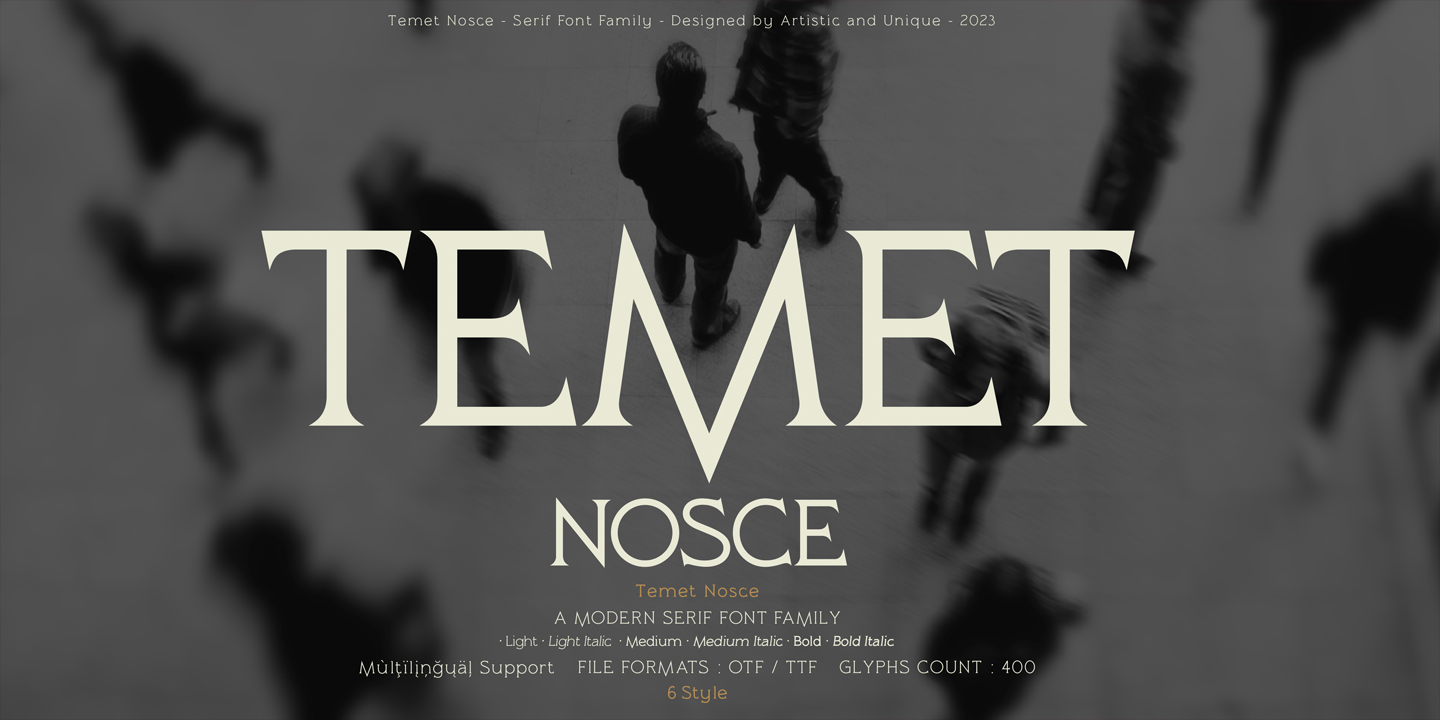
Temet Nosce Font is ideal for philosophical publication covers, meditation center branding, wisdom-focused book designs, spiritual retreat materials, psychology practice logos, ancient temple inscriptions, mindfulness app interfaces, and contemplative journal layouts. Its profound character makes it perfect for projects celebrating self-knowledge and philosophical wisdom.
What makes Temet Nosce Font exciting is its extraordinary ability to embody the ancient Greek maxim "know thyself" through thoughtfully crafted letterforms that inspire introspection and spiritual awakening. The contemplative construction features balanced proportions with mystical elements that encourage deeper reflection and self-discovery. This typeface embodies ancient wisdom and philosophical depth, making every design feel spiritually significant and intellectually profound.
Temet Nosce Font family includes Regular, Bold, Light, Italic, Ancient, and Mystic variations, providing designers with comprehensive tools for creating meaningful philosophical typographic compositions that honor wisdom traditions.
Discover profound design wisdom with the enlightening power of Temet Nosce Font Free Download. This contemplative typeface brings ancient philosophical depth to any creative project, whether you're developing brand identities for wellness organizations, crafting promotional materials for spiritual centers, or designing publications exploring human consciousness. The font's wisdom-inspired architecture and philosophical presence make it essential for projects requiring spiritual authenticity. Temet Nosce Font perfectly captures the essence of self-knowledge while ensuring optimal readability across all contemplative applications. Its introspective character forms and philosophy-inspired design language make it ideal for brands seeking to communicate inner wisdom and spiritual growth, delivering memorable results that resonate with audiences seeking personal transformation, ancient wisdom, and the timeless journey of self-discovery that leads to authentic enlightenment.